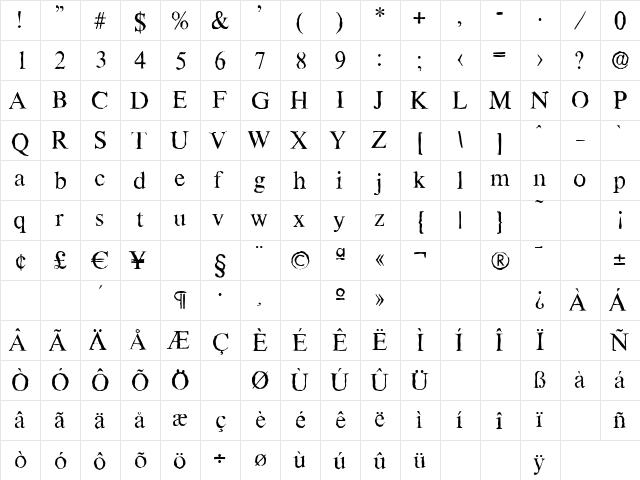
ThamesAntique Regular
Design Context for ThamesAntique Typeface
ThamesAntique has the warm character of retro typography — evoking diners, record sleeves, and the golden age of print advertising.
Perfect for vintage-inspired branding, retro packaging, nostalgia campaigns, and period-accurate editorial design.
Font Pairing: Combine ThamesAntique with a simple slab or neutral sans — period-accurate companions reinforce the vintage feel without competing for attention.
Pro Tip: Use ThamesAntique for headlines and pull quotes rather than body copy — its personality is best appreciated in short, focused bursts.